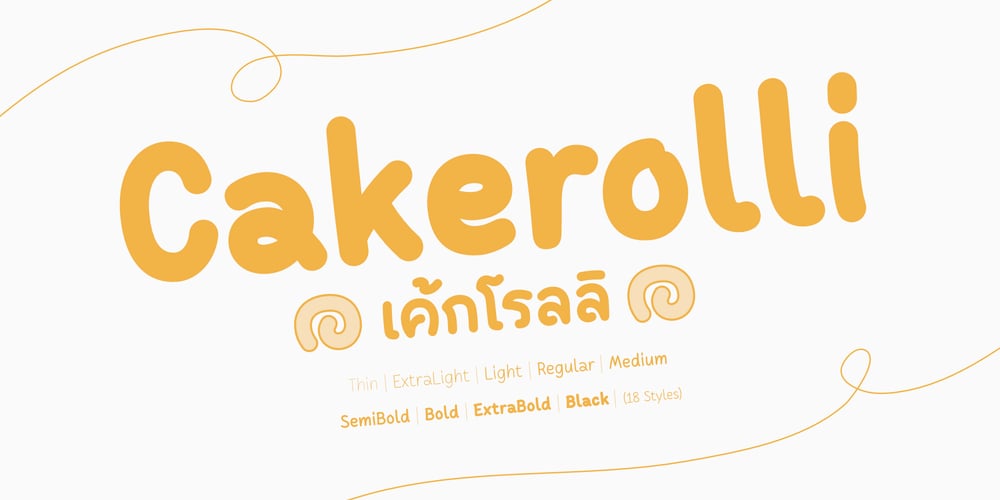
Cakerolli Font Family was designed by Anupap Jaichumnan and published by Jipatype. Cakerolli contains 18 styles and family package options. Cakerolli is a charming handwriting-style typeface that exudes a playful and friendly vibe. Designed with cute, rounded letterforms, Cakerolli captures the essence of casual handwriting, making it perfect for projects that require a warm and personal touch. Supporting both Latin-1 and Thai scripts